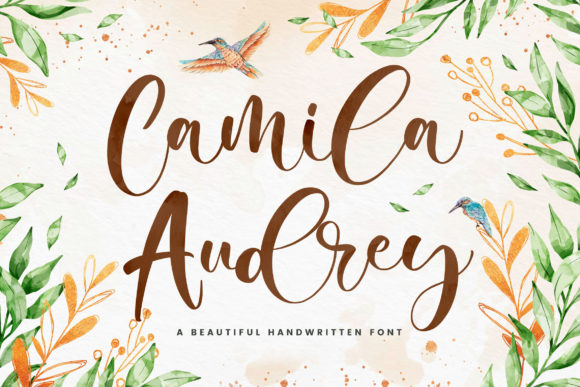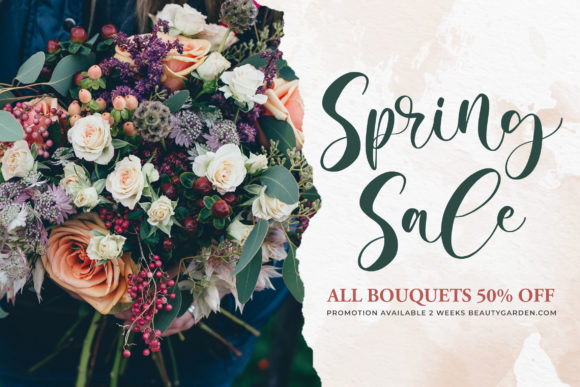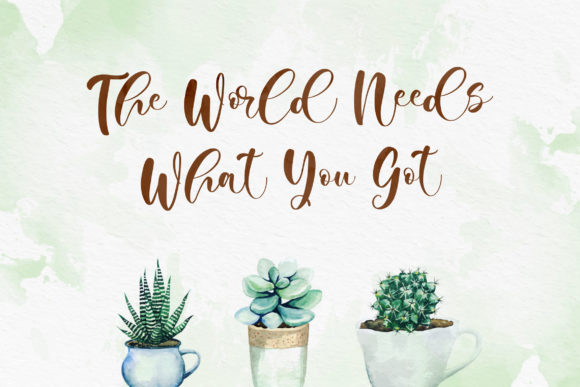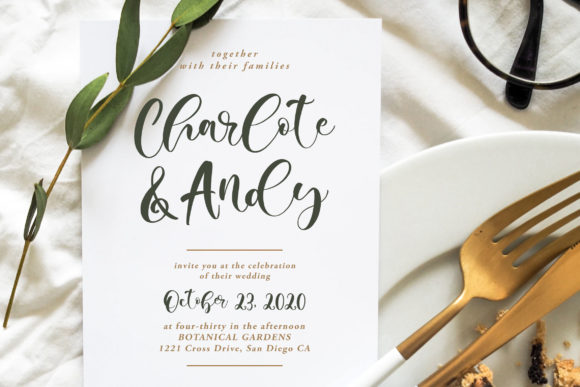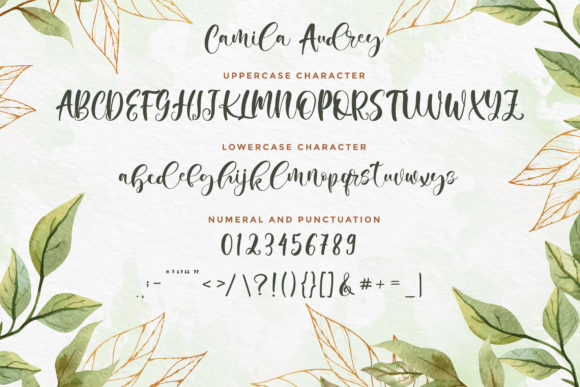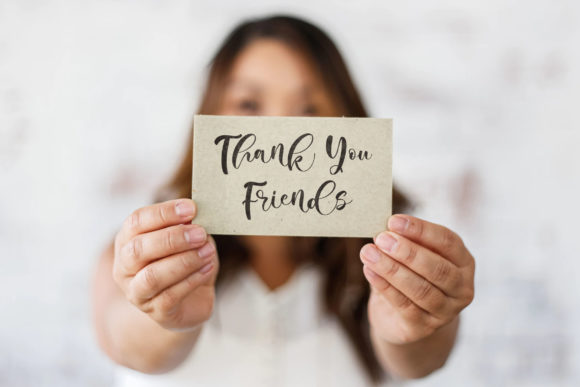
Camila Audrey Font
About Camila Audrey Font
Camila Audrey is a sweet and stunning script font. It features a modern style and will add a unique feel to your upcoming projects. Get inspired by its authentic feel and use it to create gorgeous wedding invitations, beautiful stationary art, eye-catching social media posts, and cute greeting cards.